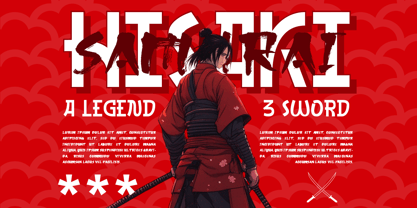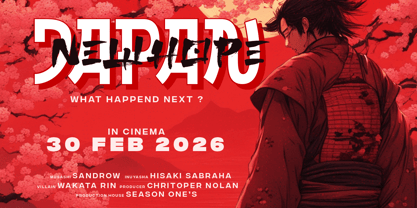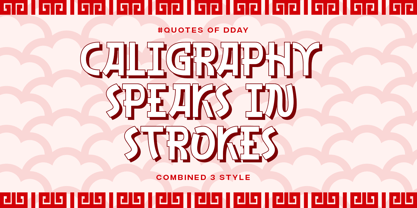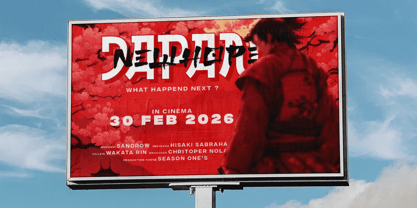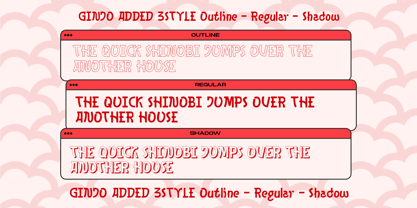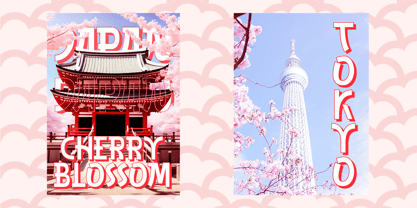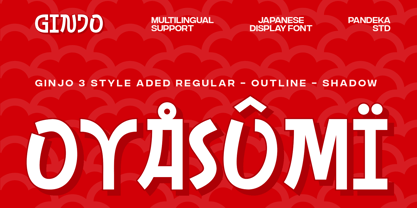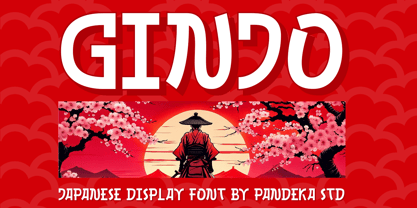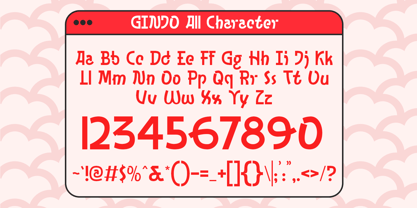
Ginjo
by Pandeka Studio
The Ginjo Font Family was designed by Sagara Nararya and published by Pandeka Studio. Ginjo contains 3 styles and family package options. More about this family
Introducing Ginjo, a modern Japanese-inspired font that combines sleek, contemporary design with a traditional Japanese aesthetic. Designed to be versatile and easy to read, Ginjo features 3 unique styles – Regular, Extrude, and Outline, making it perfect for various creative projects like logos, branding, invitations, posters, headlines, social media, and more.
• 3 Styles: Regular, Extrude, and Outline
• Full Character Set: Uppercase, lowercase, numbers, symbols, and punctuation